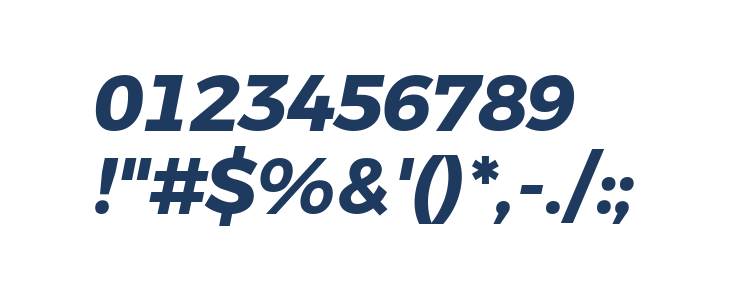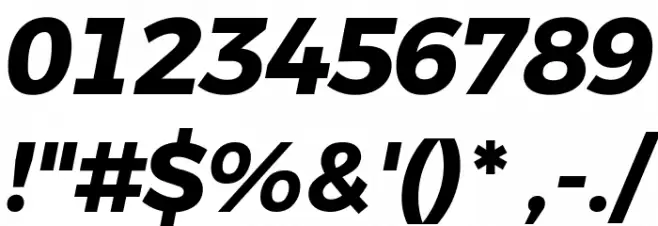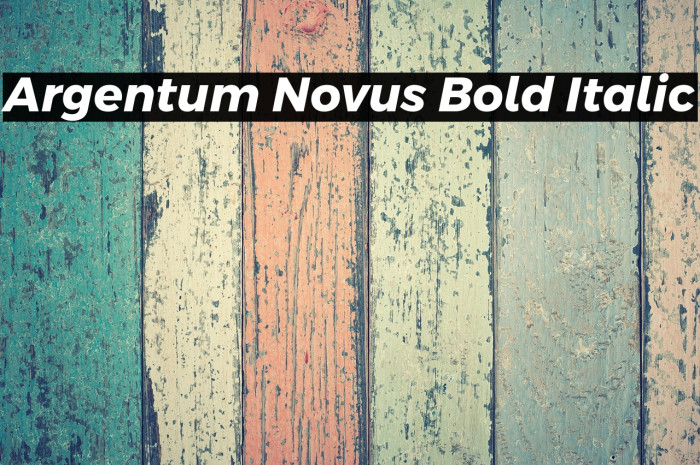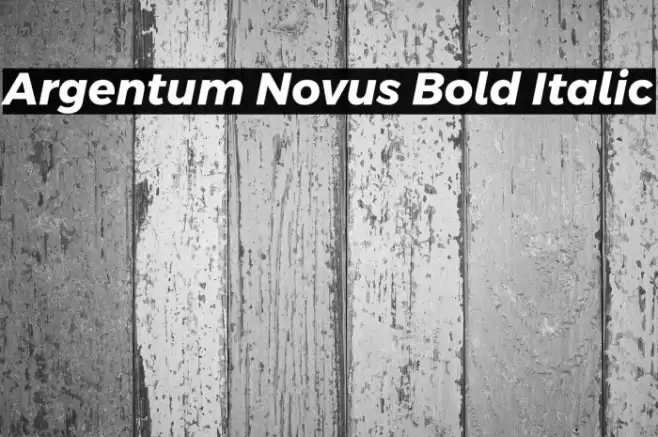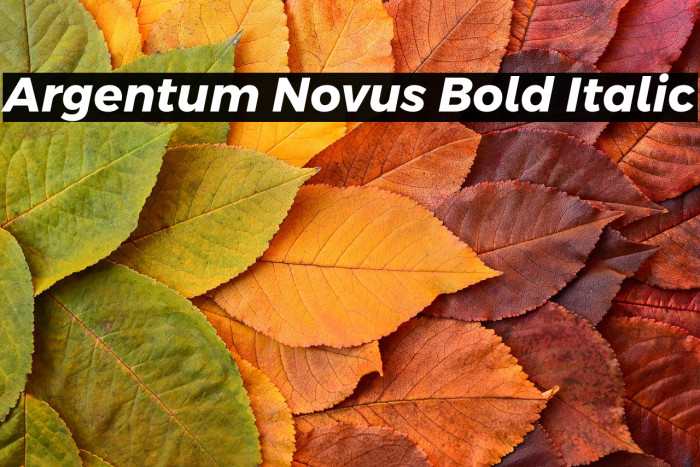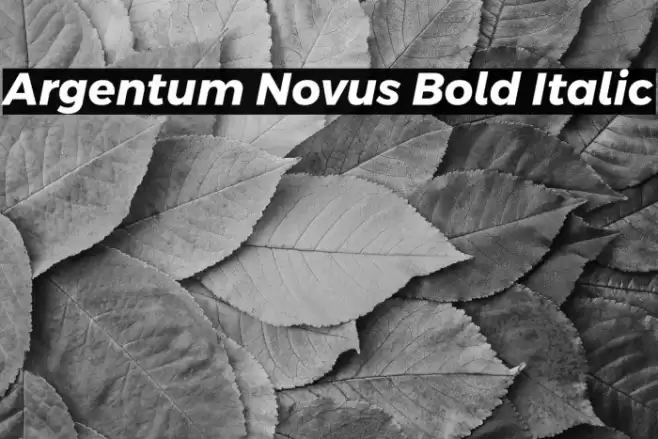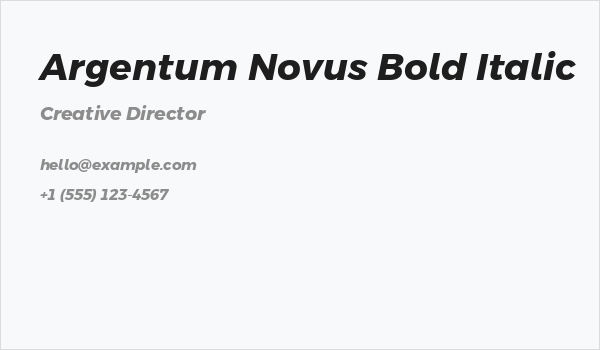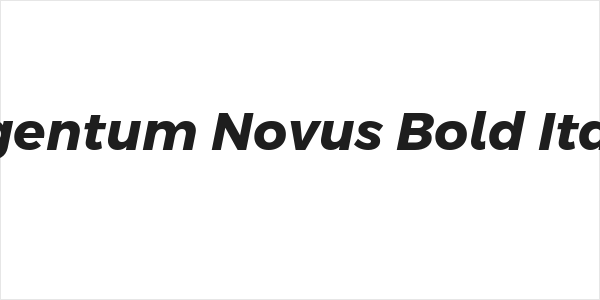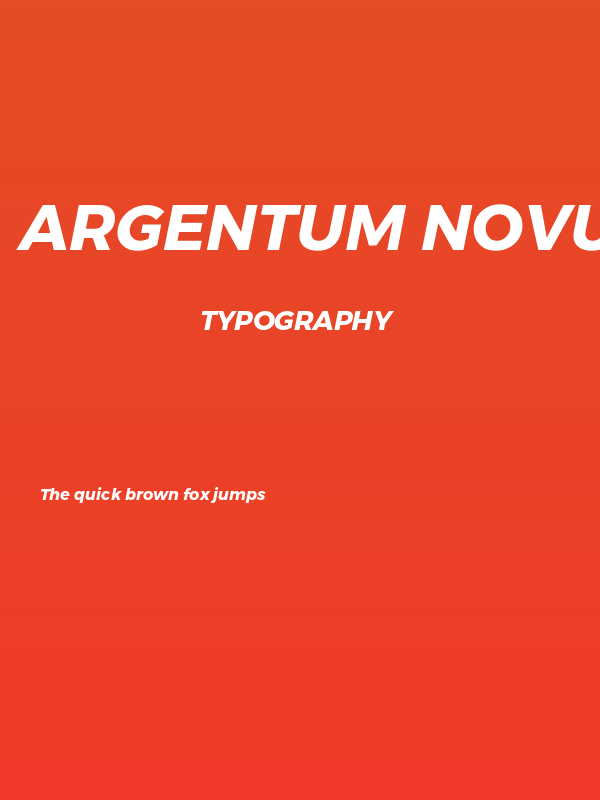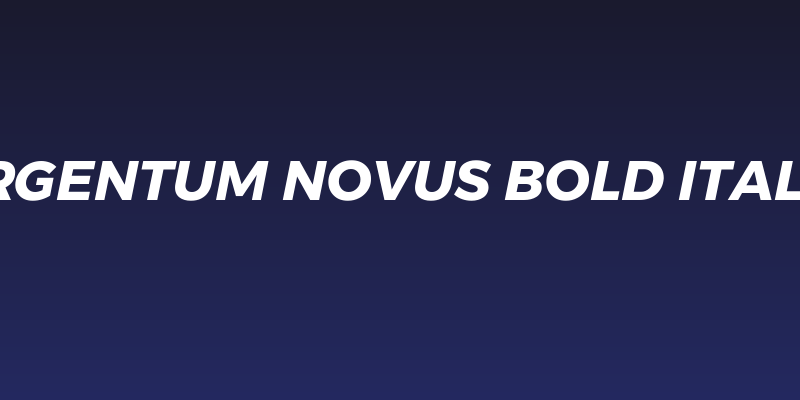
Argentum Novus Bold Italic Font
Argentum Novus Bold Italic Description
This font features a bold and italic style, characterized by its strong and dynamic appearance. The letters are slightly slanted, giving a sense of motion and energy. The strokes are thick and consistent, providing a robust and confident look. The uppercase and lowercase letters are well-balanced, with a modern and clean aesthetic. The numerals are clear and easy to read, maintaining the boldness of the overall design. Special characters are included, offering versatility for various design needs. The font's bold and italic nature makes it suitable for impactful headlines and attention-grabbing text.